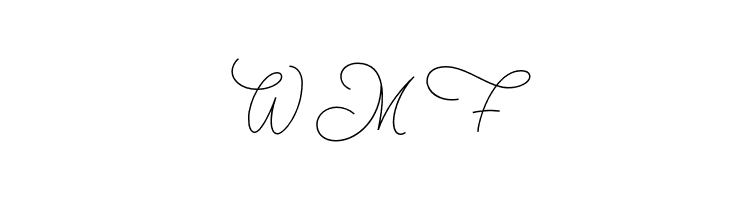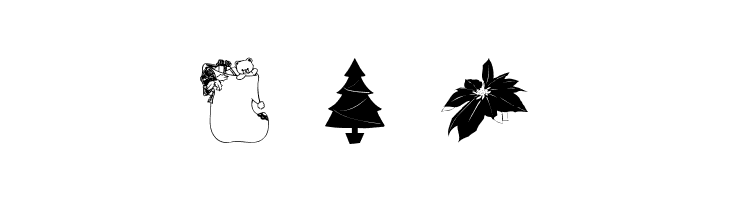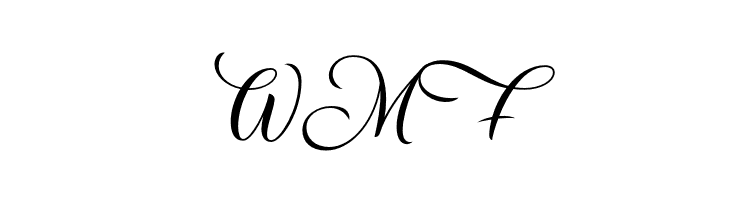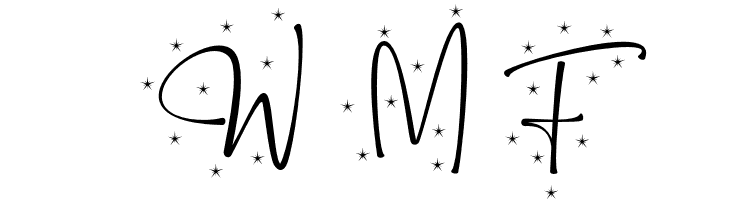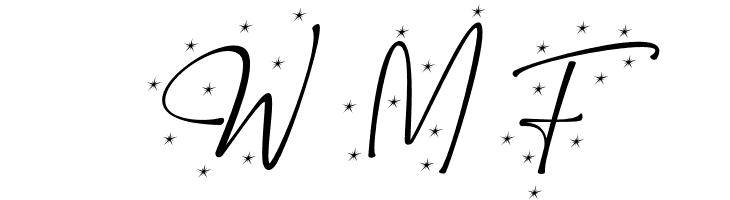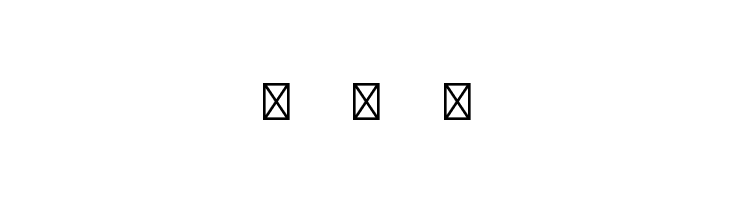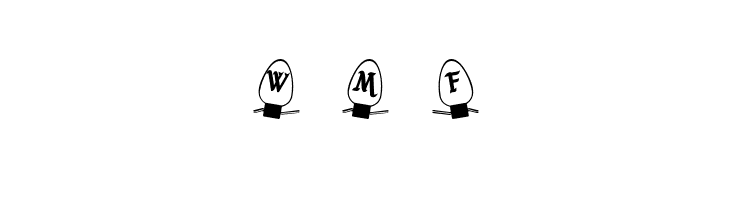
A bold, wavy font with dynamic curves and a playful yet structured design.
A whimsical, hand-drawn font with playful and dynamic characters.
A decorative, runic-inspired font with sharp, angular lines and a mysterious, ancient feel.
A thin, geometric sans-serif font with a modern and minimalist style.
A playful, doodle-patterned font with a hand-drawn aesthetic.
A bold, playful font with rounded, hand-drawn characters.
A modern, abstract font inspired by Morse code with bold, linear patterns.
A modern, geometric font with mechanical elements and bold, angular letters.
A lively, flowing script font with elegant curves and a handwritten style.
A bold, geometric font with a modern and assertive style.
A bold, geometric stencil font with high contrast and a modern industrial feel.
A distressed, grungy font with a textured, artistic style.
A bold, distressed font with a spooky, ghostly aesthetic.
A bold, textured font with a graffiti-like, energetic style.
A playful and elegant script font with fluid, connected letterforms.
An elegant, cursive script font with a flowing, handwritten style.
A bold, rounded font with a playful and friendly appearance.
Decorative mountain icon set with varied styles and detail.
Bold, geometric mountain icons with varied embellishments.
A graceful script font with flowing, interconnected letters and a sophisticated style.
A modern, geometric font with a clean and futuristic design.
A bold, geometric font with a modern and technical style.
A bold, italicized font with a modern, dynamic style.
A sleek, modern italic font with geometric precision and a futuristic aesthetic.
A geometric, modern font with clean lines and a minimalist aesthetic.
A sleek, modern, and slightly italicized font with a light and airy feel.
A bold, geometric font with sharp angles and a modern, dynamic style.
( Fonts by www.nmtype.com - Maria Ramos and Noel Pretorius (NM type) - Personal-use only. For commercial use please contact owner. )
A thin, geometric font with a modern and minimalist style.
A bold, rounded font with a playful and dynamic style.
A thin, whimsical font with playful curves and consistent stroke width.